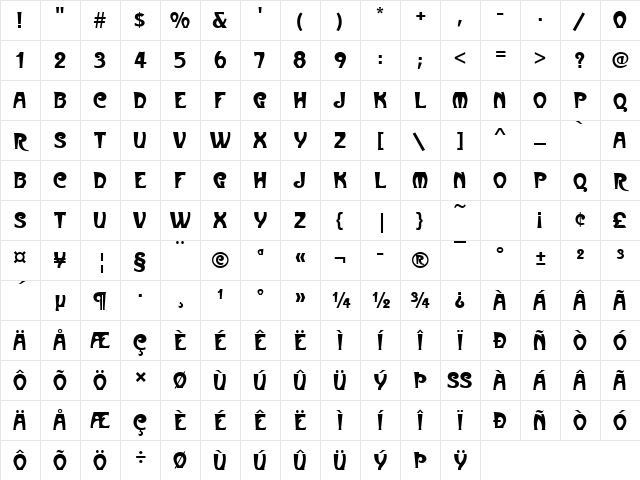
Metropolitaines Becker Regular
Complete Metropolitaines Becker Regular glyph index. Displaying only characters natively supported by Metropolitaines Becker Regular font.
Design Context for Metropolitaines Becker
Metropolitaines Becker is a composed and adaptable typeface that performs quietly and consistently across a wide range of design contexts.